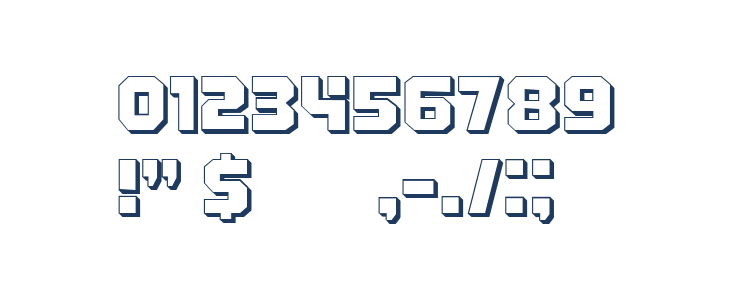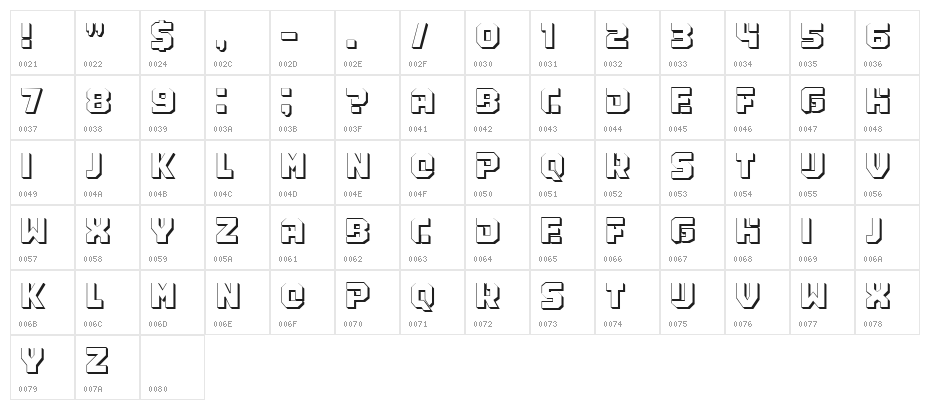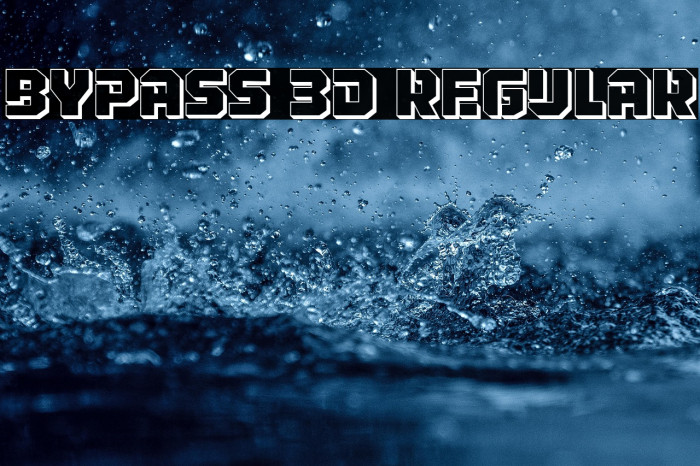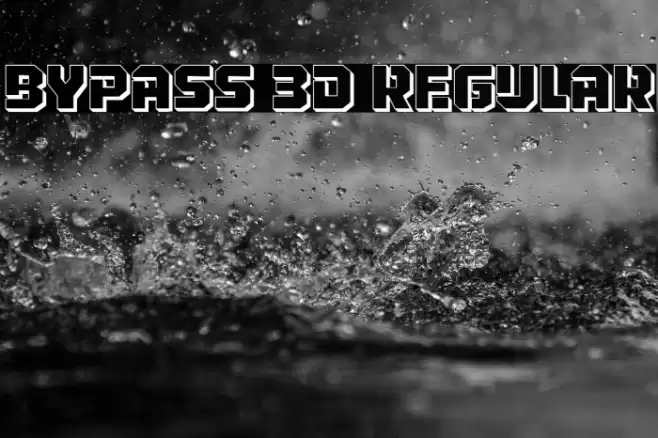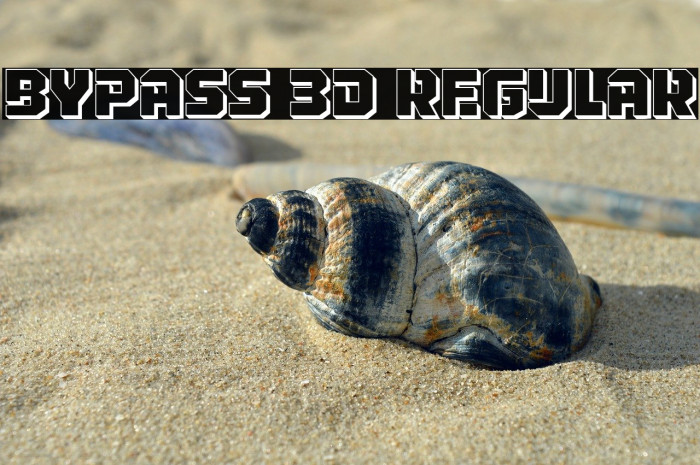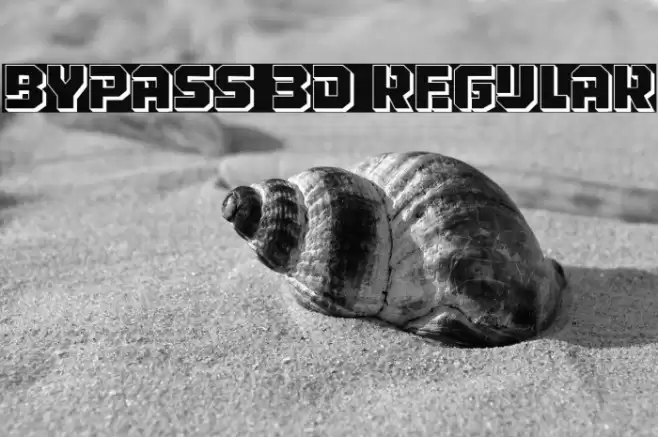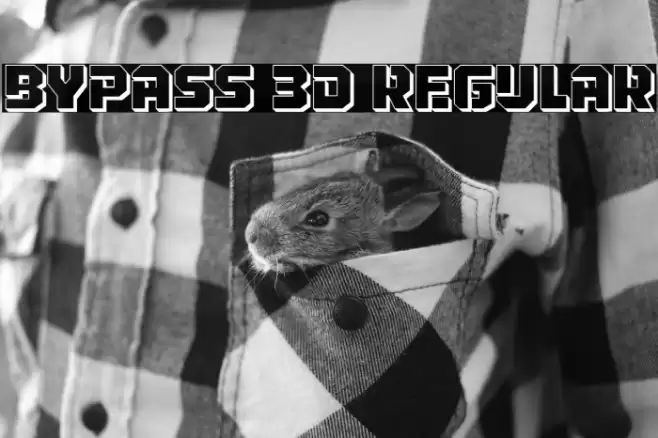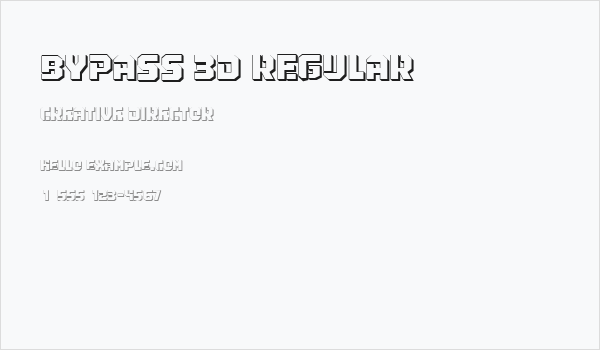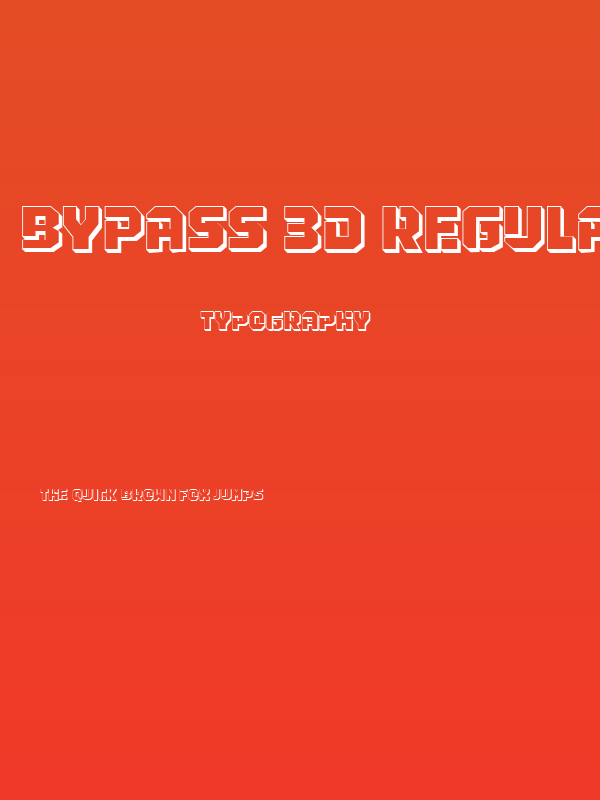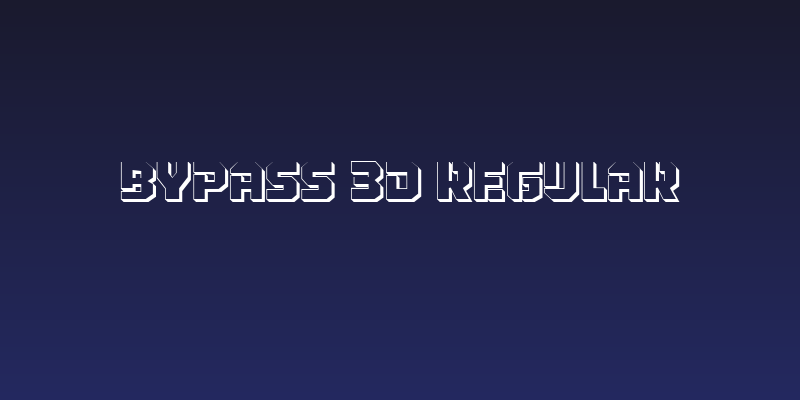
Bypass 3D Regular Font
Bypass 3D Regular Description
This font features a bold, three-dimensional design with a strong, geometric structure. The letters are blocky and angular, giving them a futuristic and industrial appearance. The 3D effect is achieved through a shadow-like outline that adds depth and dimension. The uppercase and lowercase letters maintain a consistent style, with clean lines and sharp edges. Numbers and special characters are designed to match the bold and striking aesthetic, making them stand out prominently. This font is ideal for creating eye-catching headlines and titles, as well as for use in graphic design projects that require a modern and impactful look.
| Proposed Projects | Ideal for posters, logos, video game graphics, and any project needing a modern, bold statement. |